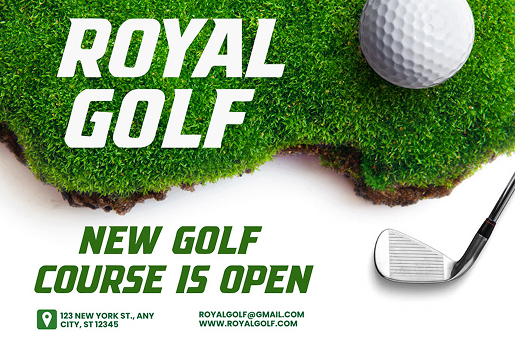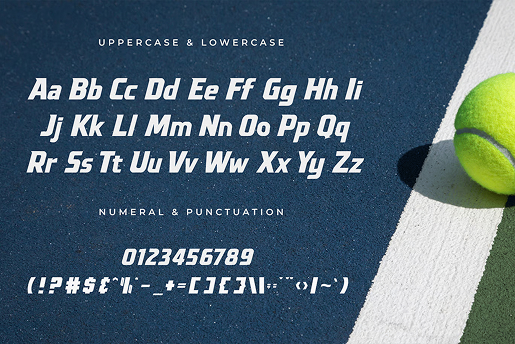
Kickrush – A Modern Sport Font
Kickrush is a contemporary sports font designed to inject energy and power into your visuals. Featuring bold angles and dynamic lines, it conveys speed and strength with style. Ideal for sports branding, team logos, athletic wear, posters, and esports designs. Kickrush delivers a striking, athletic presence that commands attention.